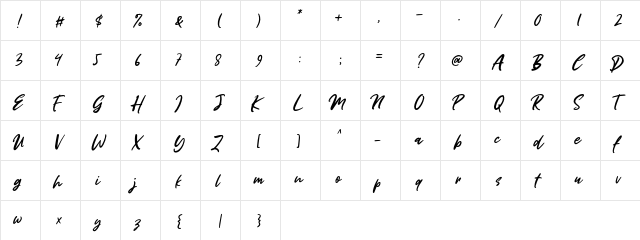
Miss Rhinetta Regular
| Designer | Weape Studio |
Design Context for Miss Rhinetta Typeface
Miss Rhinetta is a composed and adaptable typeface that performs quietly and consistently across a wide range of design contexts.